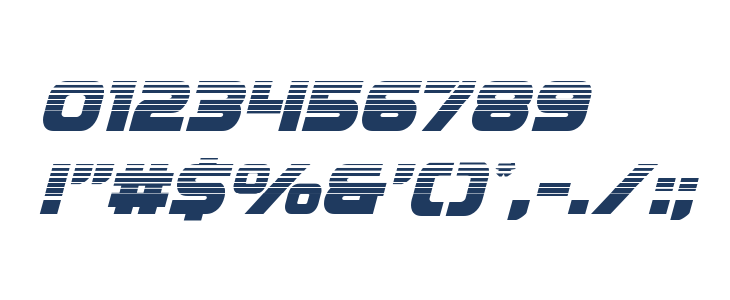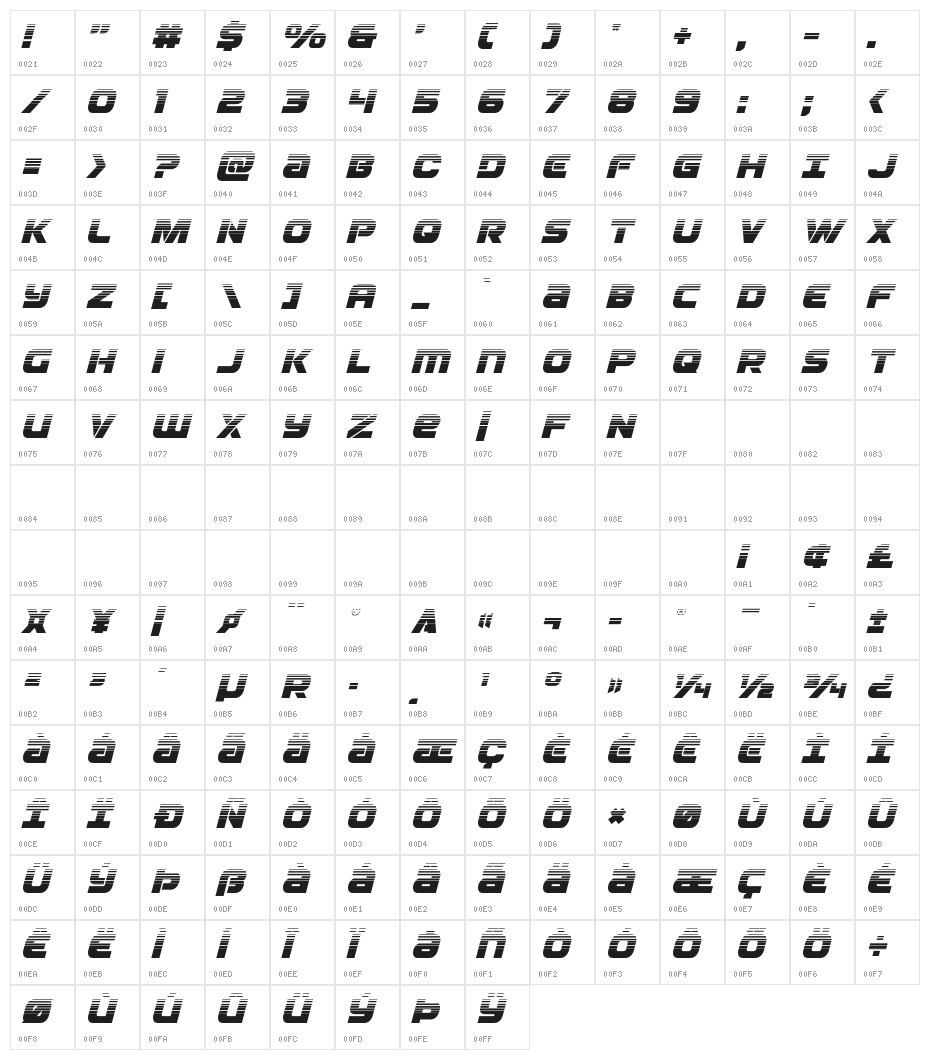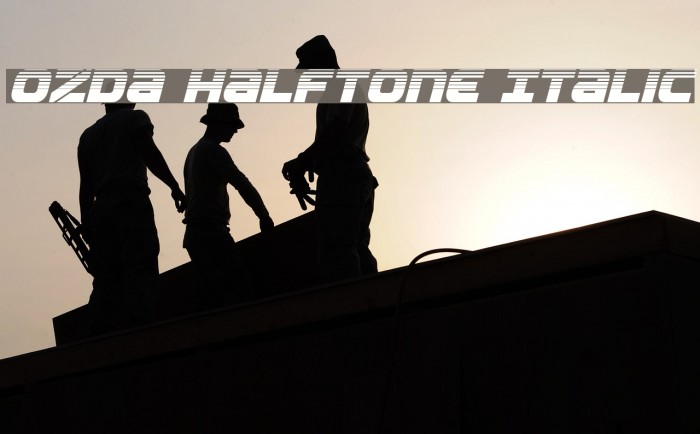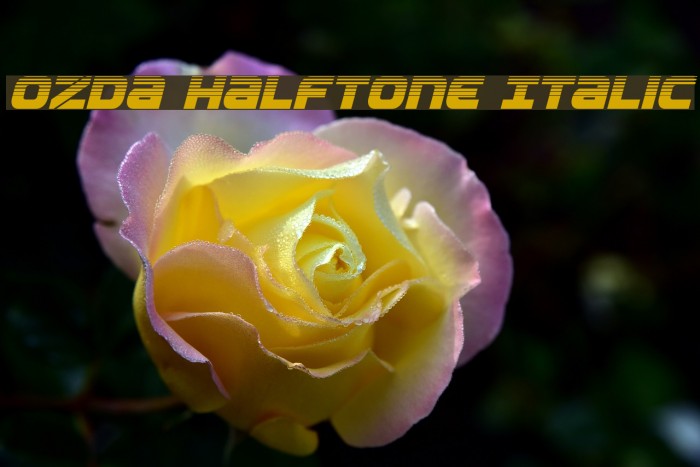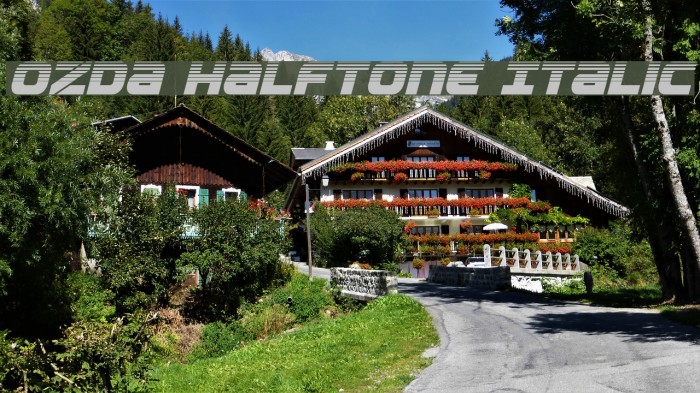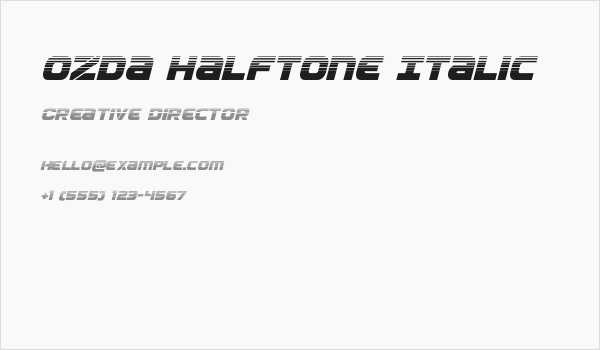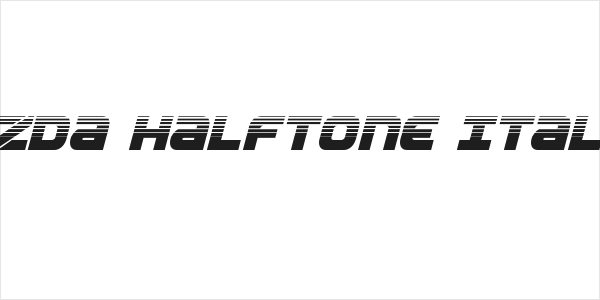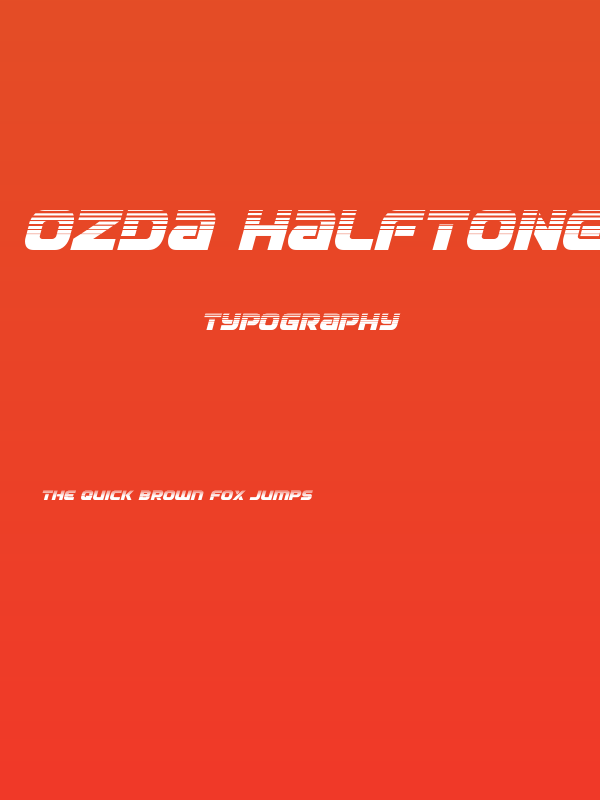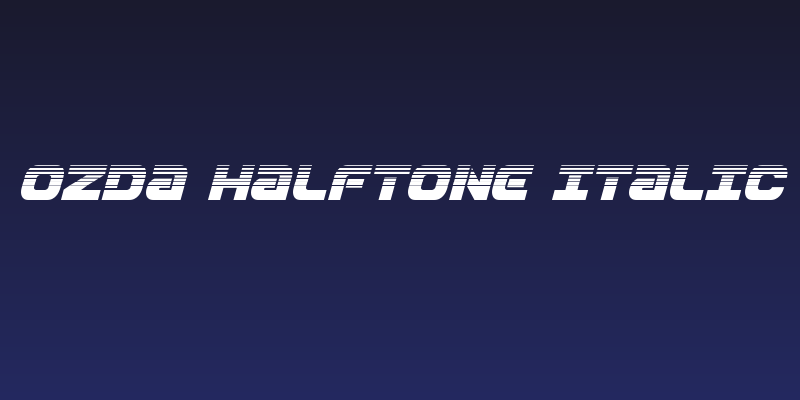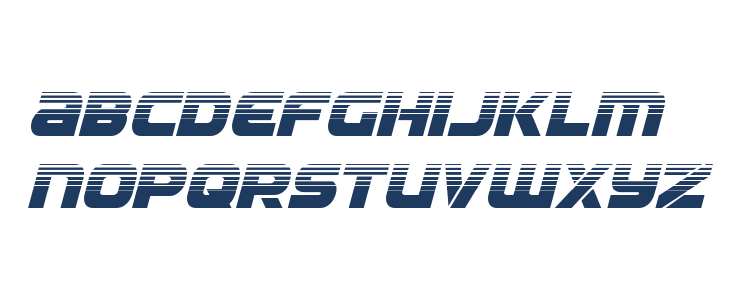
Ozda Halftone Italic Font
Ozda Halftone Italic Description
This font features a dynamic and futuristic design with a halftone effect that gives it a unique, textured appearance. The italicized style adds a sense of motion and speed, making it ideal for projects that require a modern and energetic look. The characters are bold and impactful, with a distinct slant that enhances their visual appeal. The uppercase and lowercase letters, along with numbers and special characters, maintain a consistent style, ensuring versatility across different applications. The halftone pattern adds depth and dimension, making it stand out in digital and print media.
| Proposed Projects | Ideal for sports branding, tech-related designs, dynamic posters, and modern advertising campaigns. |